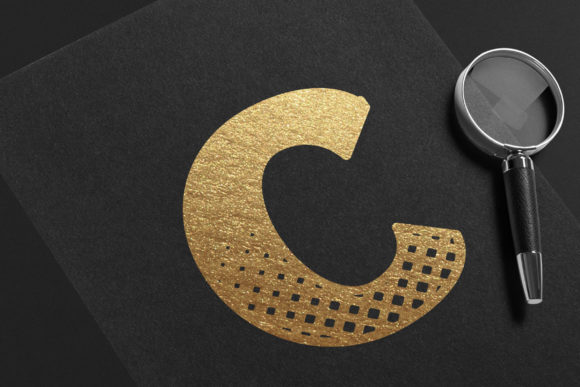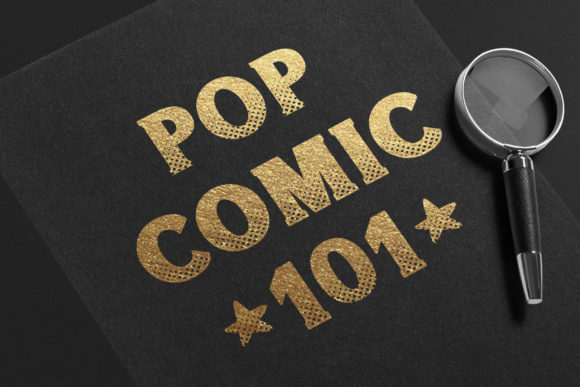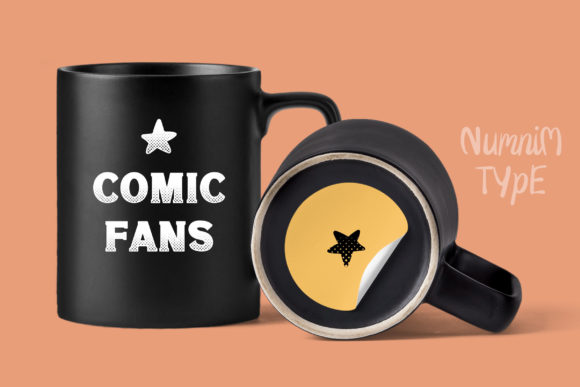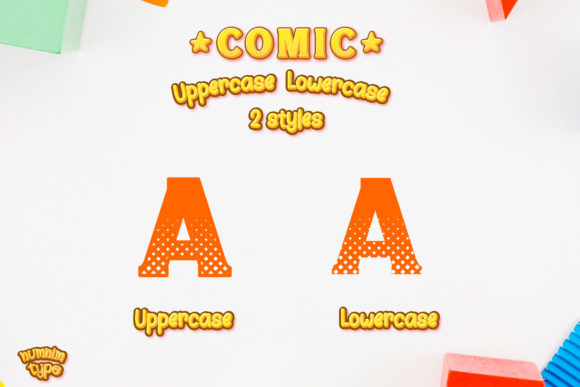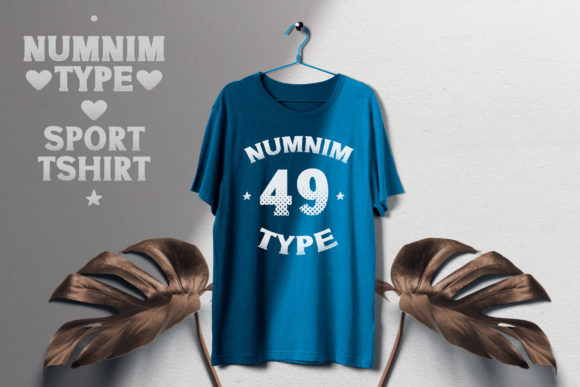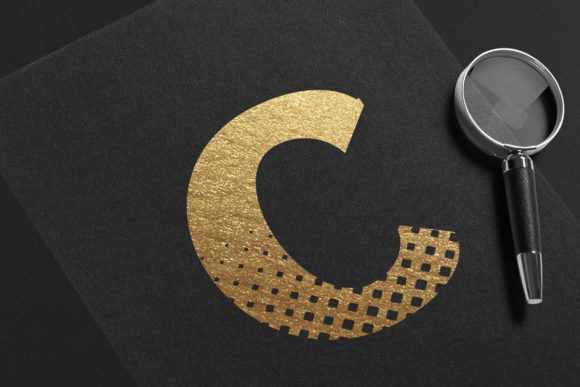
Introducing Comic Font: Add a Personalized Vintage Touch to Your Crafting Projects
Are you a designer or crafter looking for a unique and eye-catching font to add a personalized vintage touch to your projects? Look no further than Comic Font, a thick and cool lettered display font that’s perfect for a variety of crafting applications. In this article, we’ll take a closer look at Comic Font, its features, and how you can use it to elevate your crafting projects.
What is Comic Font?
Comic Font is a display font that features a distinctive comic book-style aesthetic. Each character is carefully crafted with a thick, bold line and a cool, retro vibe that’s sure to turn heads. But what really sets Comic Font apart is its use of comic halftone effects on each character. This gives the font a unique, textured look that’s reminiscent of classic comic books.
Key Features of Comic Font
- Thick and bold lines: Comic Font features thick, bold lines that give it a sturdy, attention-grabbing appearance.
- Comic halftone effects: Each character features a comic halftone effect, giving the font a unique, textured look.
- Retro vibe: Comic Font has a cool, retro aesthetic that’s perfect for crafting projects that require a vintage touch.
- Display font: Comic Font is designed as a display font, making it perfect for headlines, titles, and other attention-grabbing applications.
Uses for Comic Font
So, what can you use Comic Font for? The possibilities are endless! Here are a few ideas to get you started:
- Crafting projects: Comic Font is perfect for a variety of crafting projects, such as scrapbooking, card making, and DIY paper crafts.
- Graphic design: Comic Font can be used in graphic design applications, such as creating posters, flyers, and brochures.
- Sign making: Comic Font is a great choice for creating eye-catching signs, whether for a business, event, or personal project.
- Digital art: Comic Font can be used in digital art applications, such as creating digital collages or illustrations.
Tips for Using Comic Font
Here are a few tips for getting the most out of Comic Font:
- Use it sparingly: Comic Font is a bold, attention-grabbing font, so use it sparingly to avoid overwhelming your design.
- Pair it with a simple font: Comic Font pairs well with simple, sans-serif fonts that provide a clean contrast to its bold, comic book-style aesthetic.
- Experiment with colors: Comic Font looks great in a variety of colors, so don’t be afraid to experiment and find the perfect hue for your project.
Comic Font is a unique and versatile font that’s perfect for designers and crafters looking to add a personalized vintage touch to their projects. With its thick, bold lines, comic halftone effects, and retro vibe, Comic Font is sure to turn heads. Whether you’re working on a crafting project, graphic design application, or digital art piece, Comic Font is a great choice. So why not give it a try and see what amazing creations you can come up with?